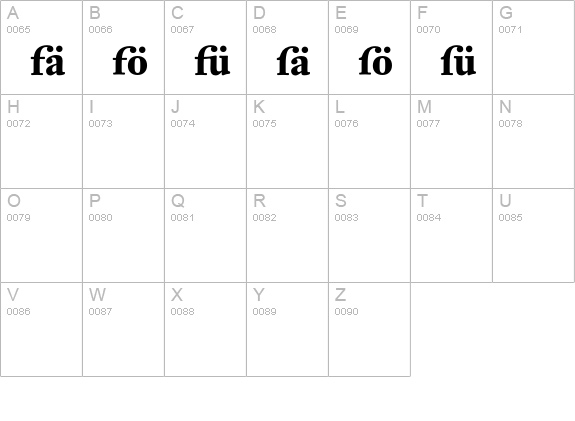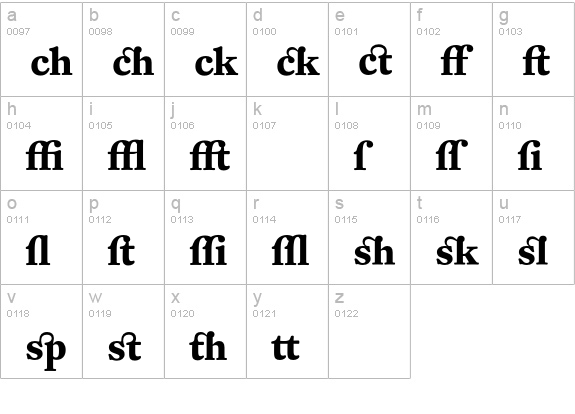
DTL Fleischmann T Bold Alt is a strong, high-contrast variant in the DTL typeface family \xE2\x80\x94 well suited to headlines, attention-grabbing titles, and strong calls-to-action.